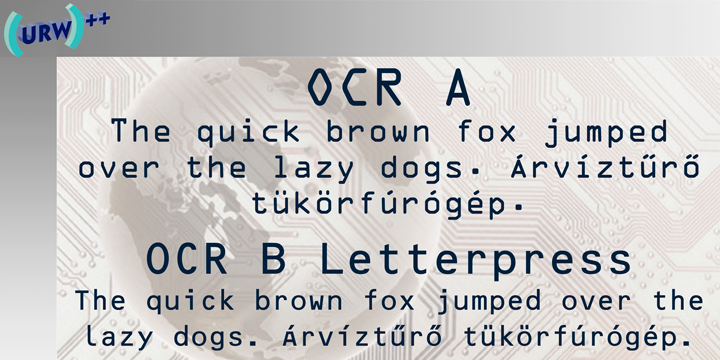
OCR-A M Font is perfect for technical documentation, computer programming interfaces, retro-futuristic design projects, digital banking applications, barcode labeling systems, industrial equipment displays, scientific data presentations, automated processing forms, vintage computer aesthetics, and cyberpunk-inspired graphics. Its machine-readable character makes it ideal for projects requiring technical precision and computer-age authenticity.
What makes OCR-A M Font exciting is its iconic representation of early computer era typography with standardized letterforms designed specifically for optical character recognition that captures the essence of digital revolution and technological advancement. The font features uniform stroke weights, geometric precision, and systematic character construction that create authentic computer-age atmosphere and technical credibility. Its utilitarian personality brings technological authority to contemporary designs while maintaining the functional clarity essential for machine processing and data recognition systems. The carefully engineered systematic elements ensure optimal machine readability while preserving the distinctive character that defined the dawn of digital communication.
OCR-A M Font comes in multiple technical variations including Standard, Bold, Condensed, Extended, and Monospace styles. Each family member maintains the distinctive machine-readable character while offering comprehensive flexibility for technical documentation and digital interface design applications. The complete font family includes technical symbols, programming characters, and system punctuation marks that enhance the technological aesthetic and provide essential tools for technical communication excellence.
Whether you're developing tech brands, technical documentation, or retro-digital projects, OCR-A M Font Free Download provides the authentic computer-age character needed to communicate with technical audiences and digital natives who appreciate technological heritage and systematic design. The font's technical appeal resonates with programmers, engineers, and tech enthusiasts seeking genuine digital authenticity and machine precision. Its comprehensive character set includes programming symbols and technical notation marks, making it perfect for creating complete technical brand systems and memorable digital storytelling across diverse technology applications and computer-age design projects that celebrate systematic precision and technological innovation.